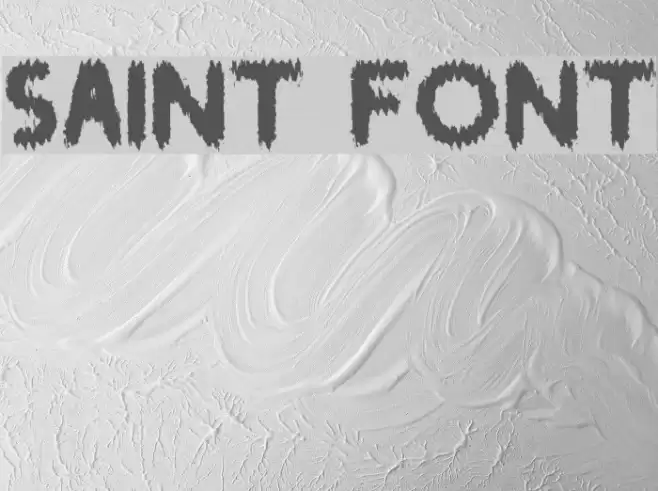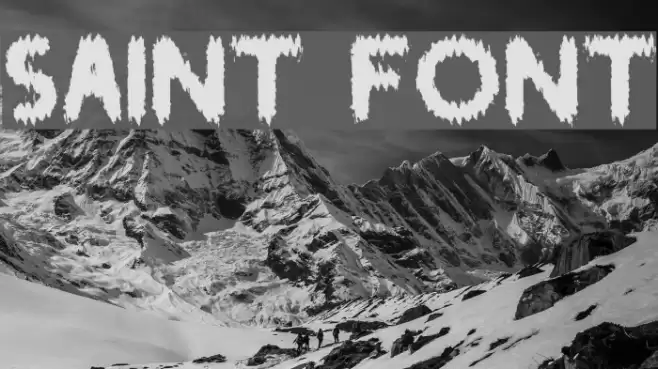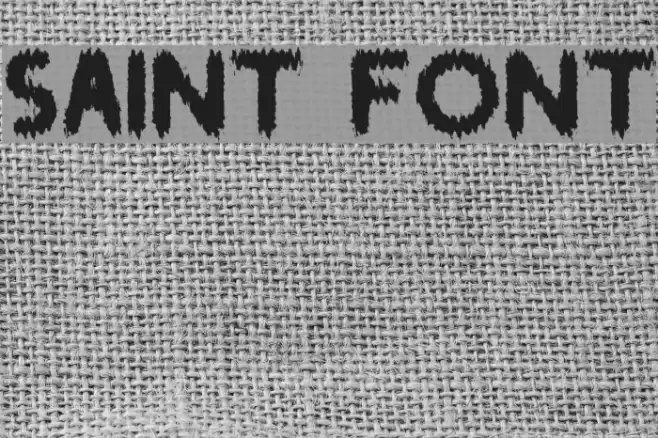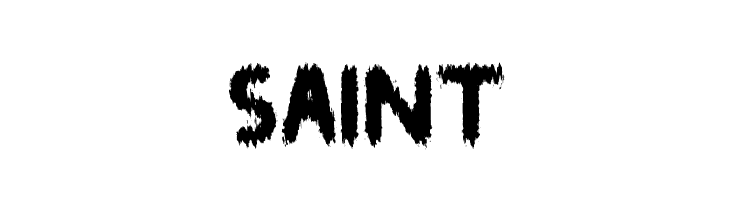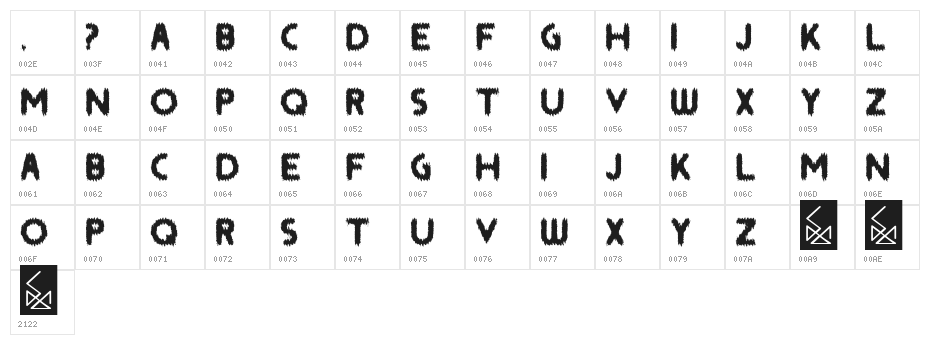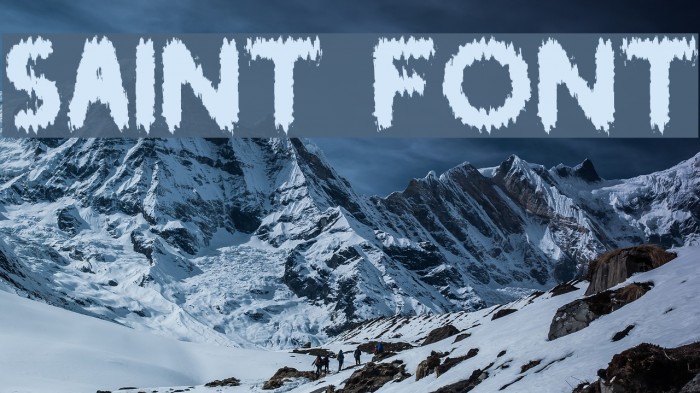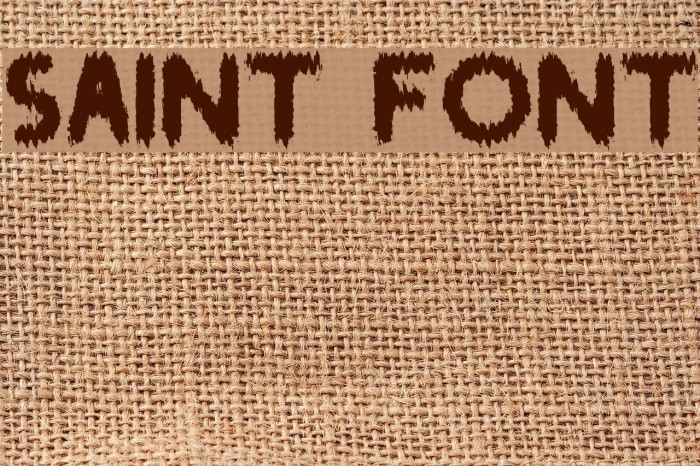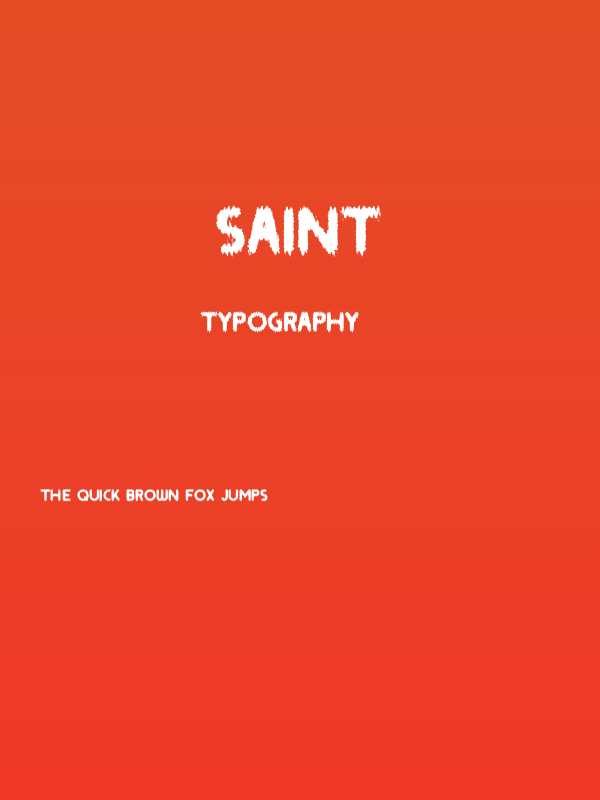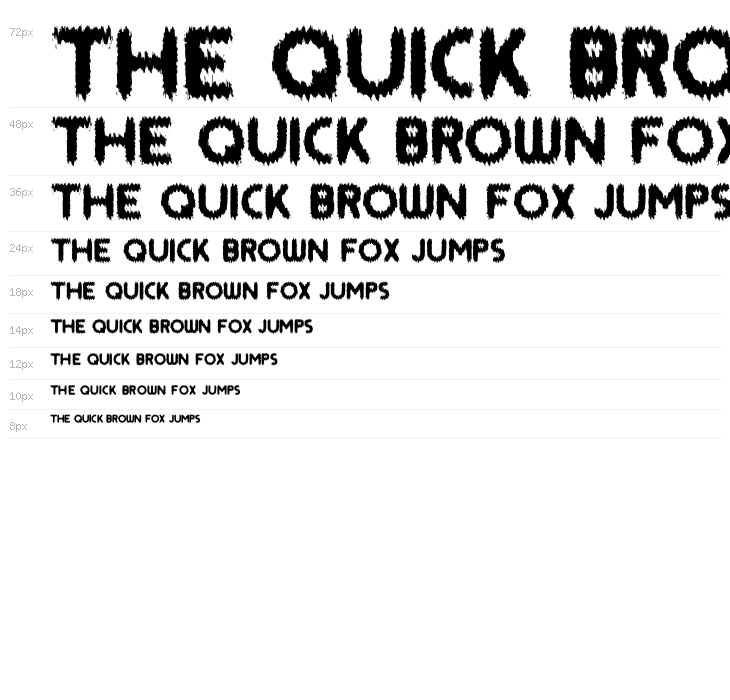
SAINT Font
SAINT Description
This font features a bold and jagged design, reminiscent of a distressed or grunge style. The characters have an irregular, rough edge that gives them a dynamic and energetic appearance. This style is particularly eye-catching and can add a sense of movement and intensity to any design. The uppercase letters are consistent in height, while the overall spacing between characters is relatively tight, enhancing the compact and impactful look. The font's unique texture makes it suitable for projects that require a bold statement or a creative, edgy feel.
A bold, jagged, and distressed font with a grunge aesthetic from Uncategorized fonts.
- Proposed Projects: Ideal for music album covers, event posters, edgy branding, and creative digital art.
- Character Spacing: Tight
- Overall Style: Grunge, Edgy, Dynamic